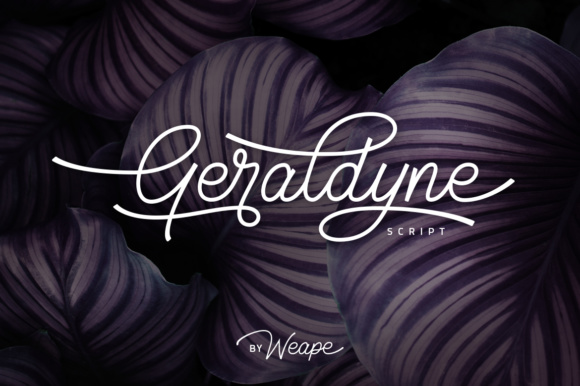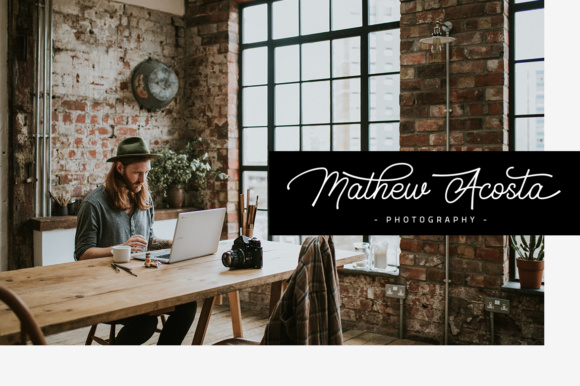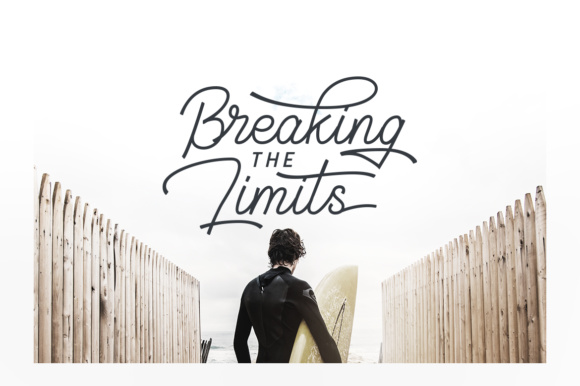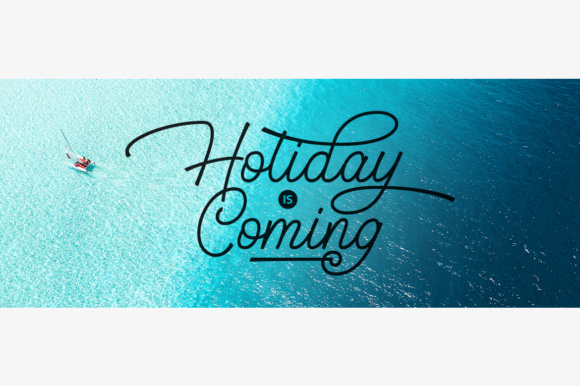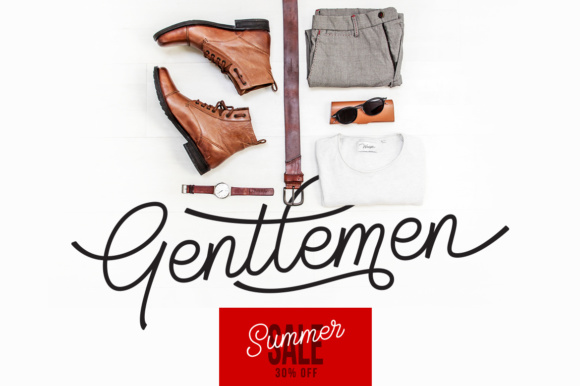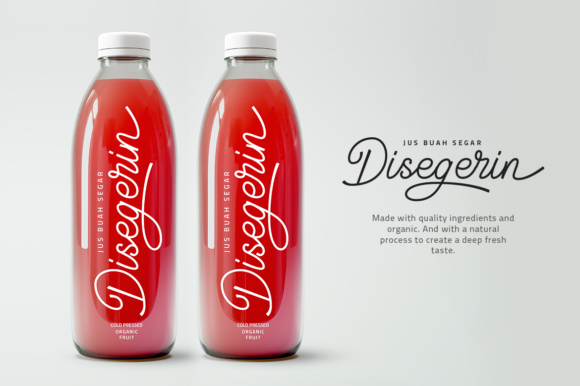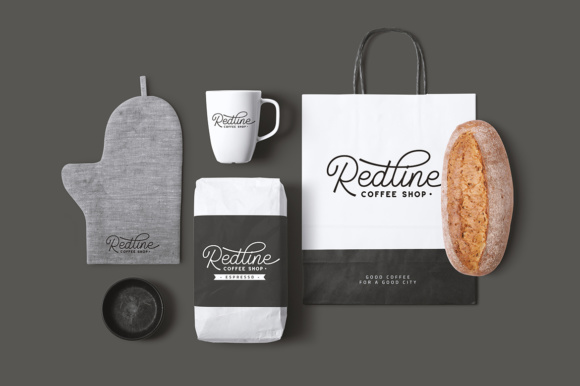
Geraldyne Font
Geraldyne is a beautiful, monoline font that will add a ton of charm and style to your works. This is a clean calligraphy font and excels as the focal point to your work.